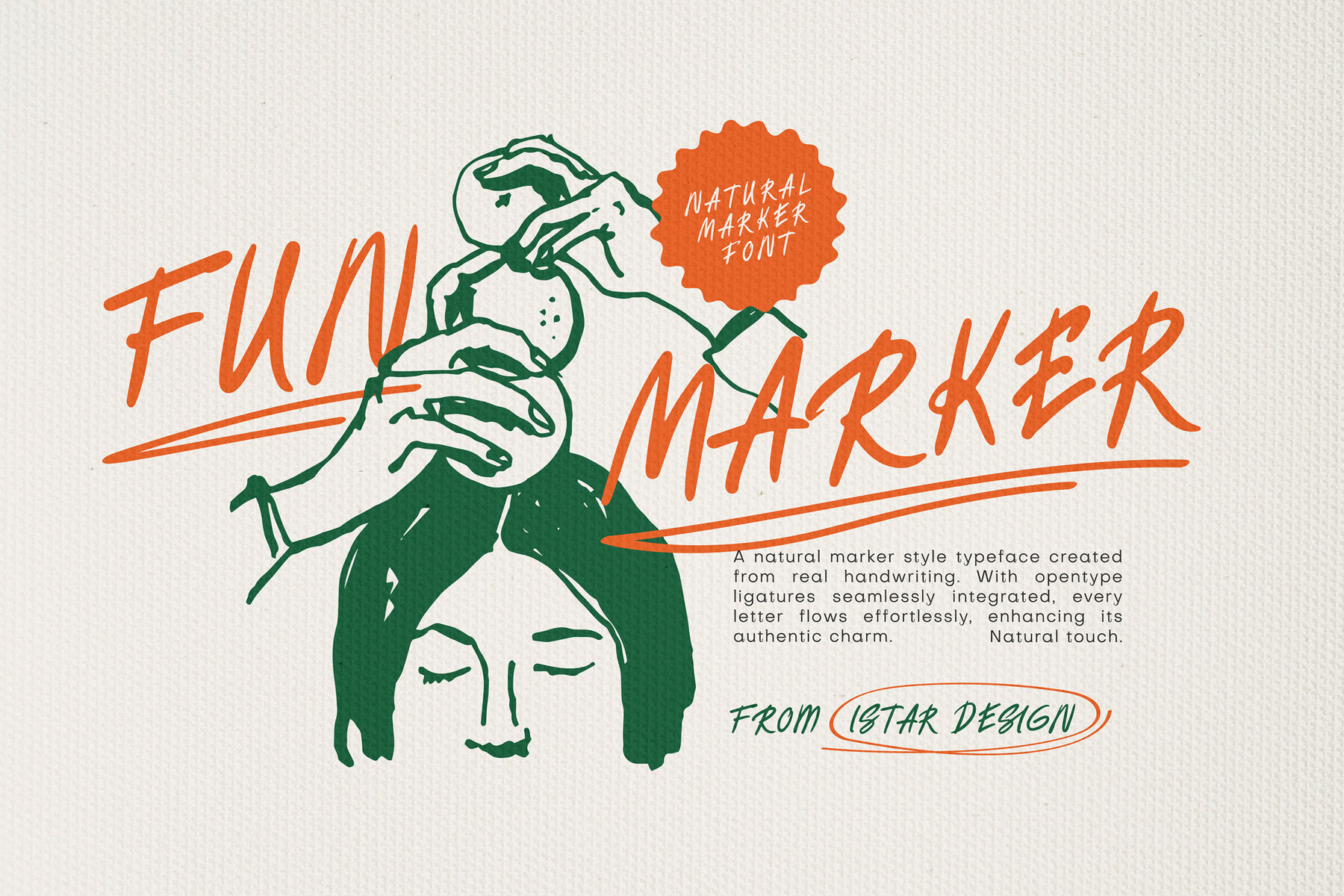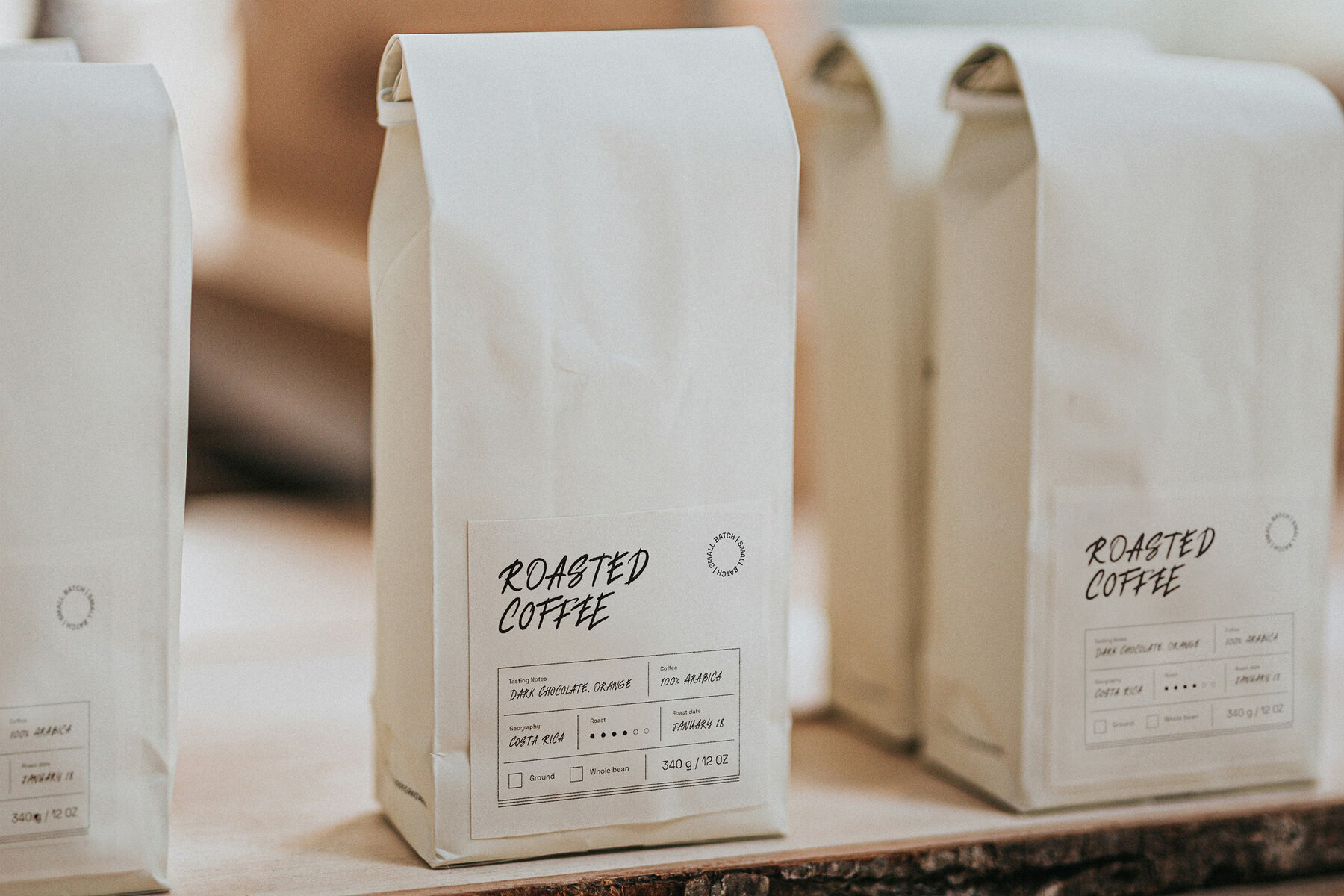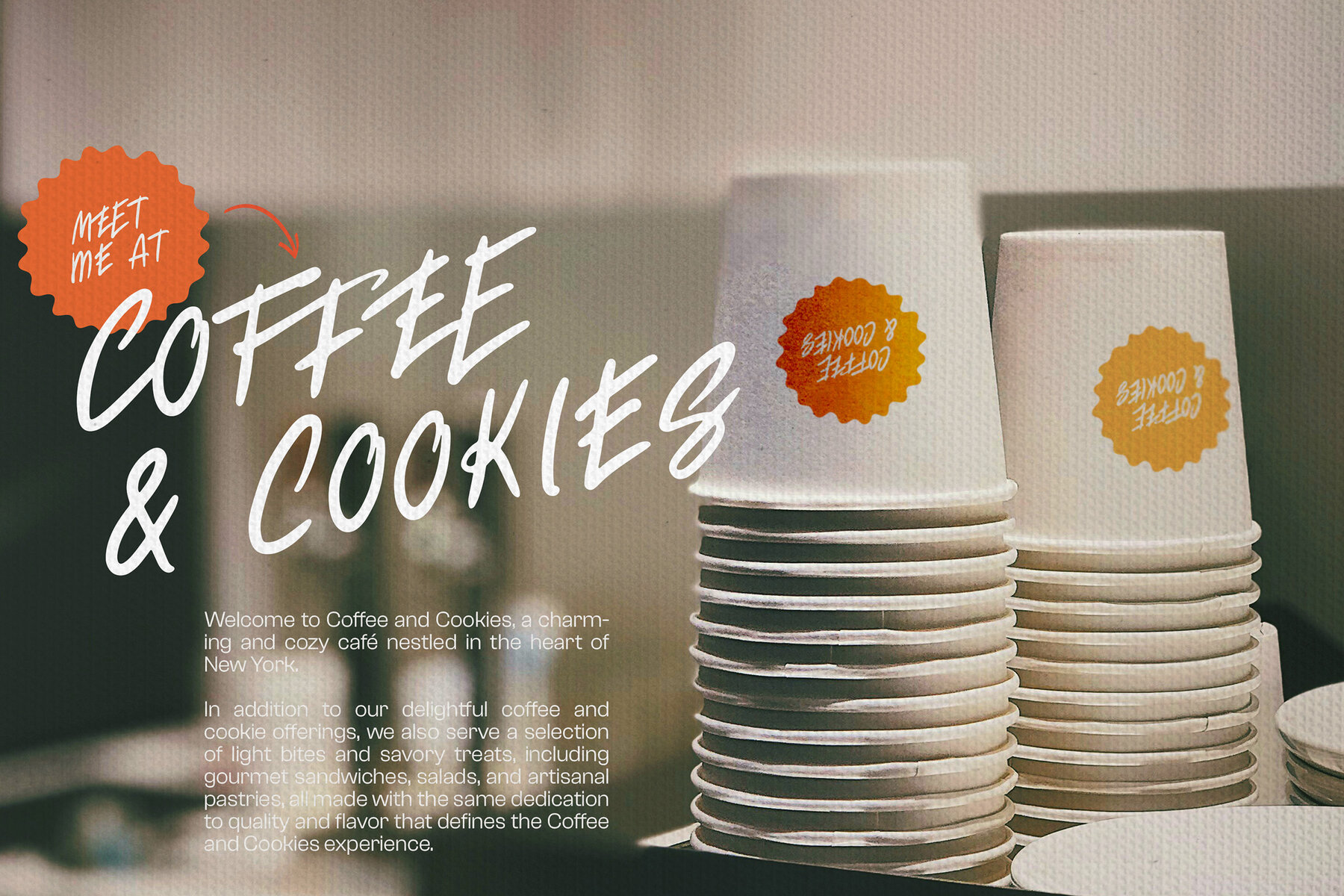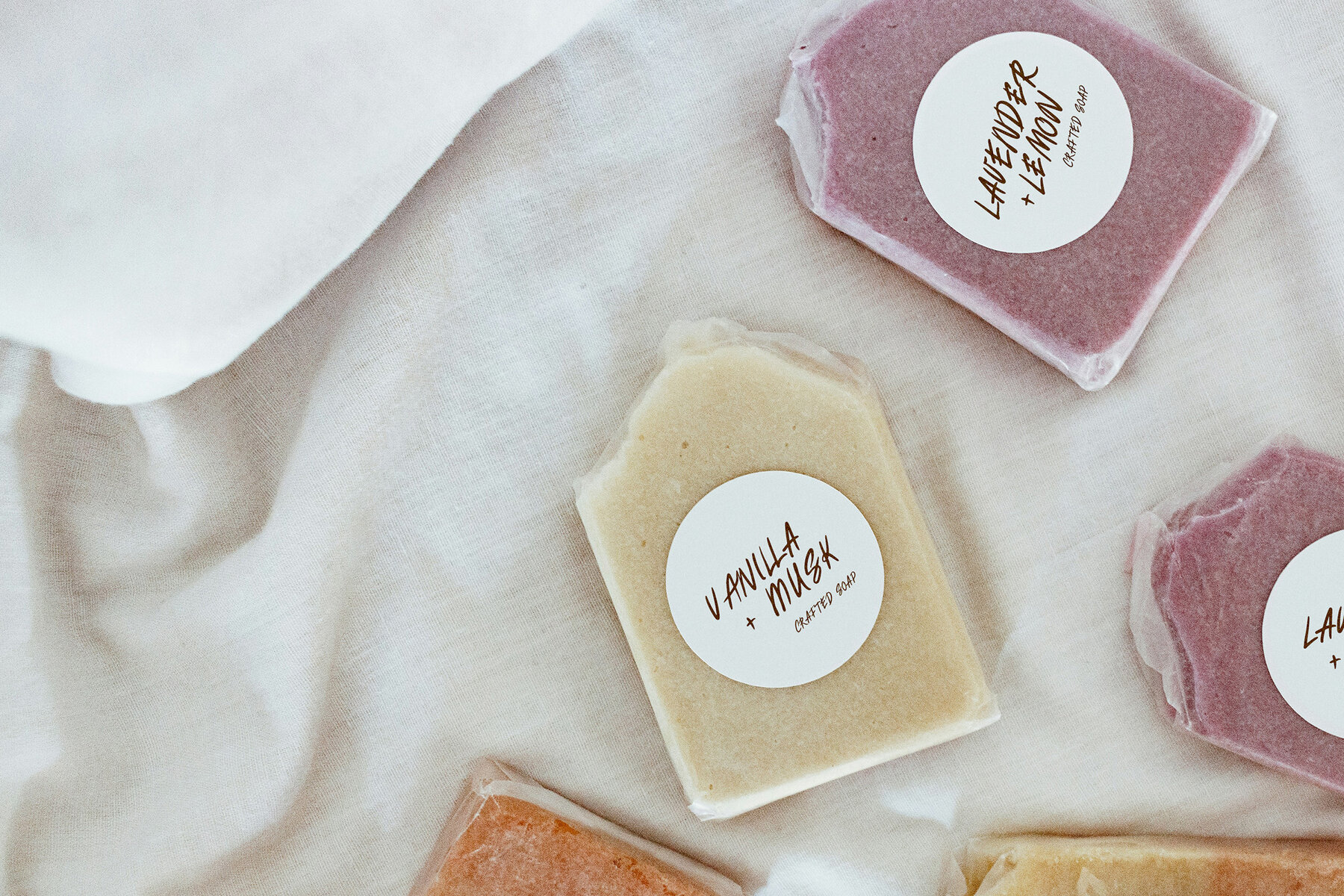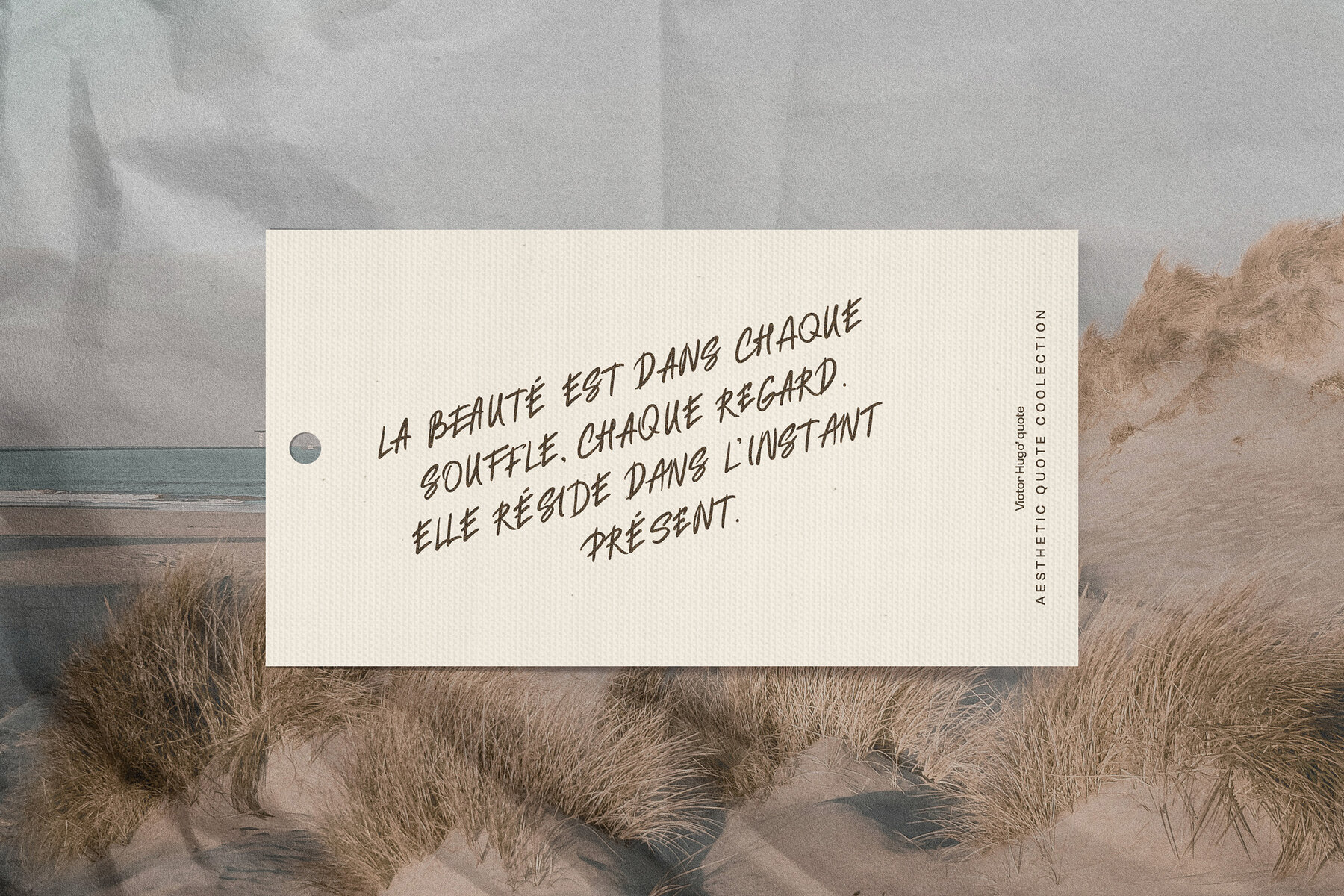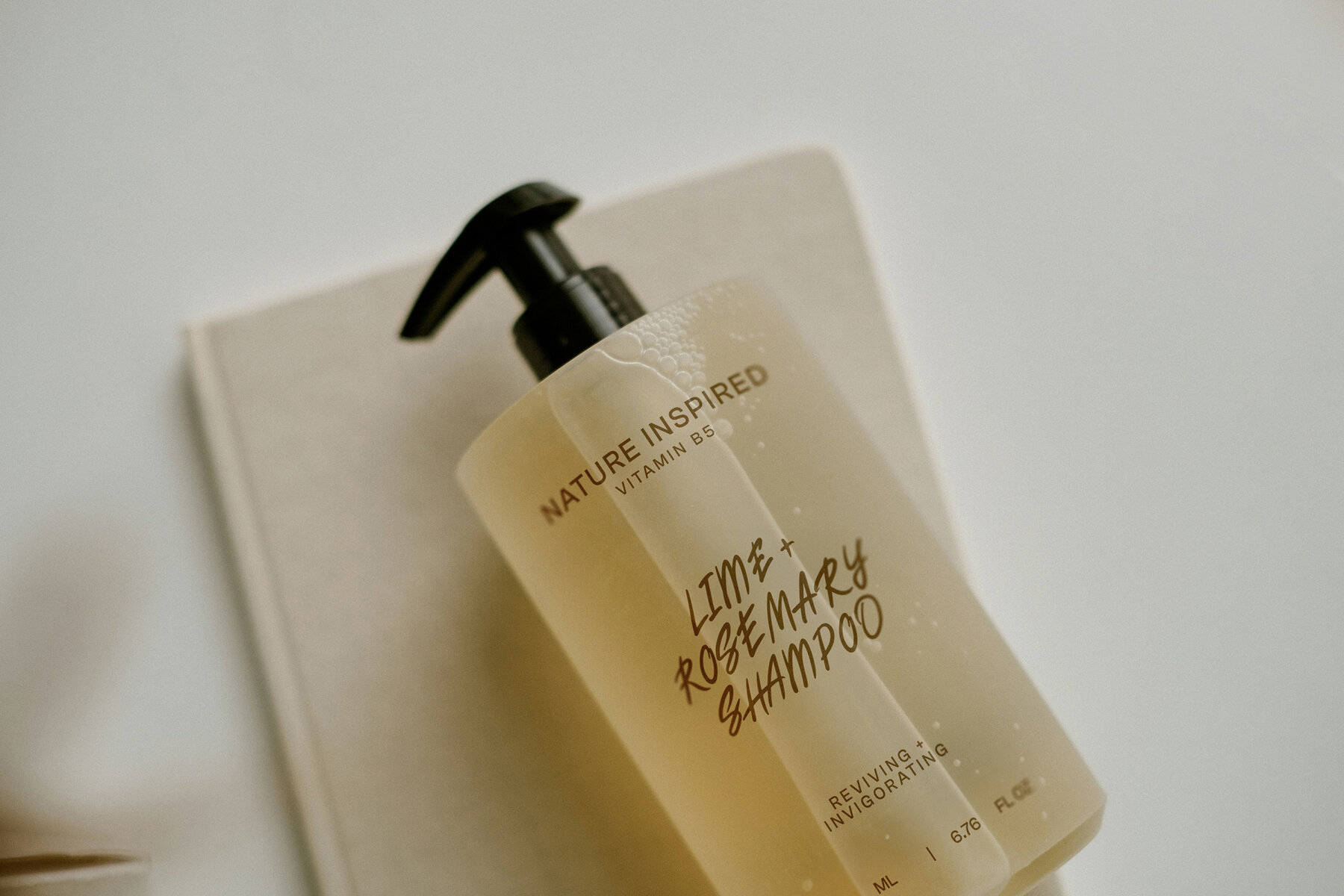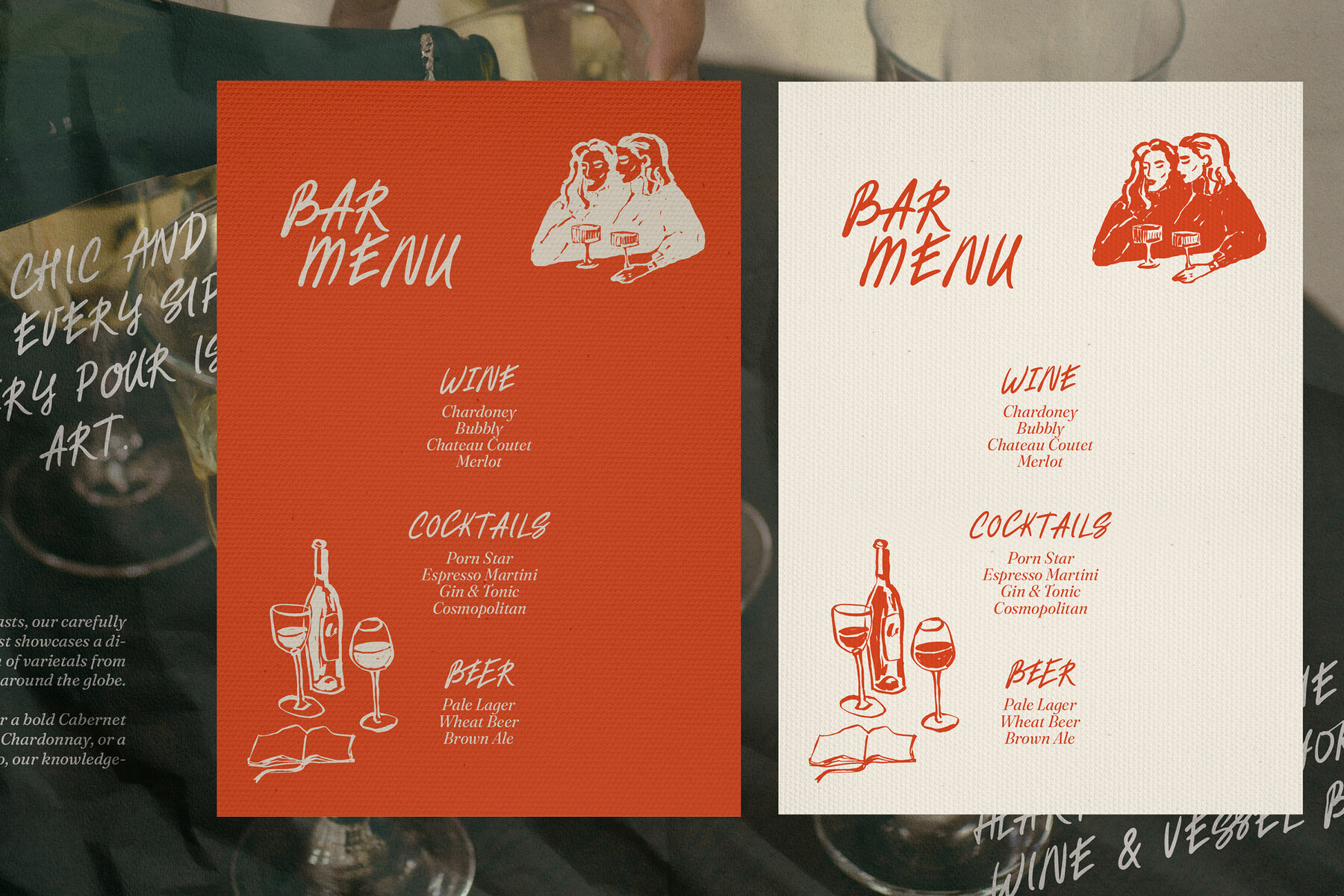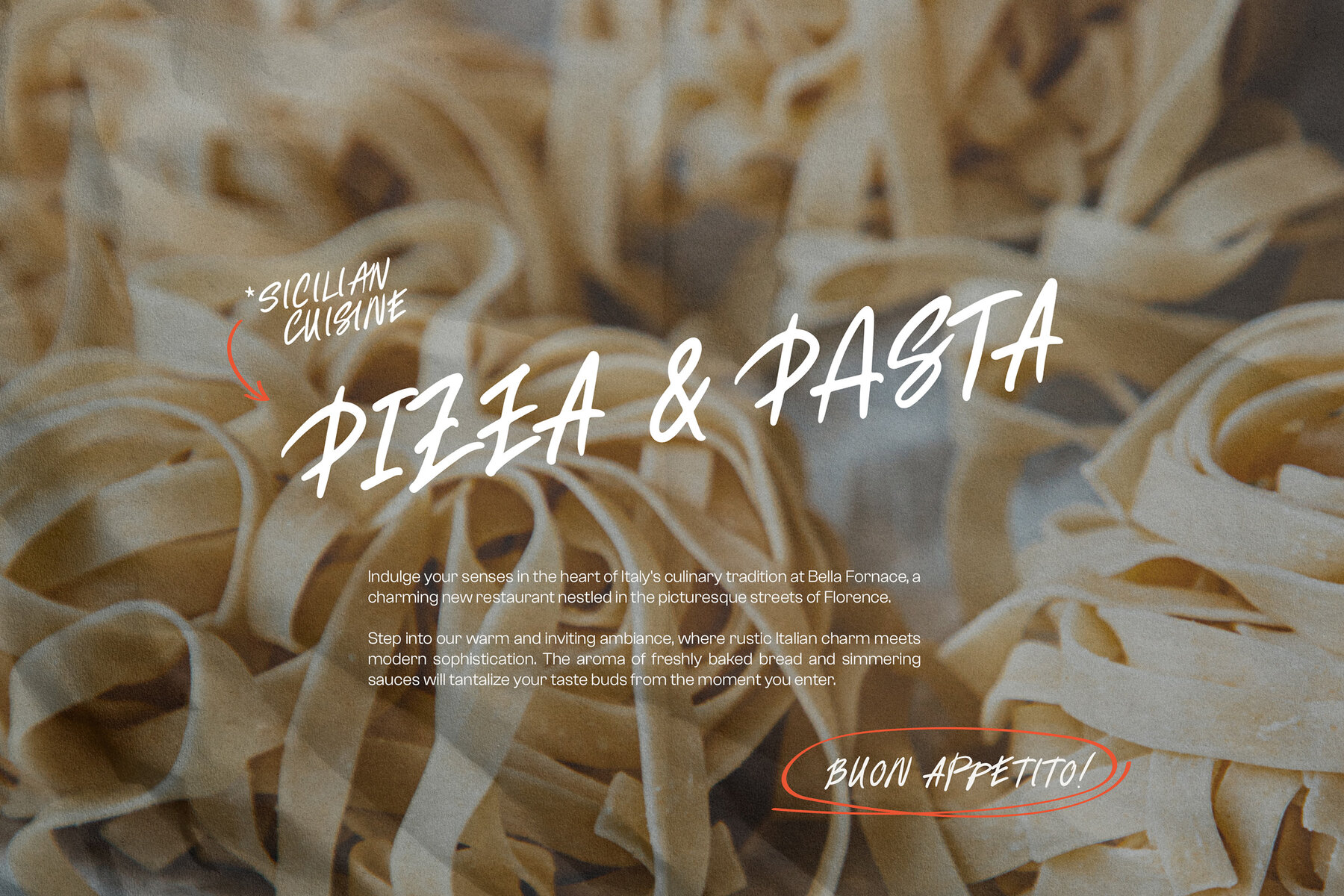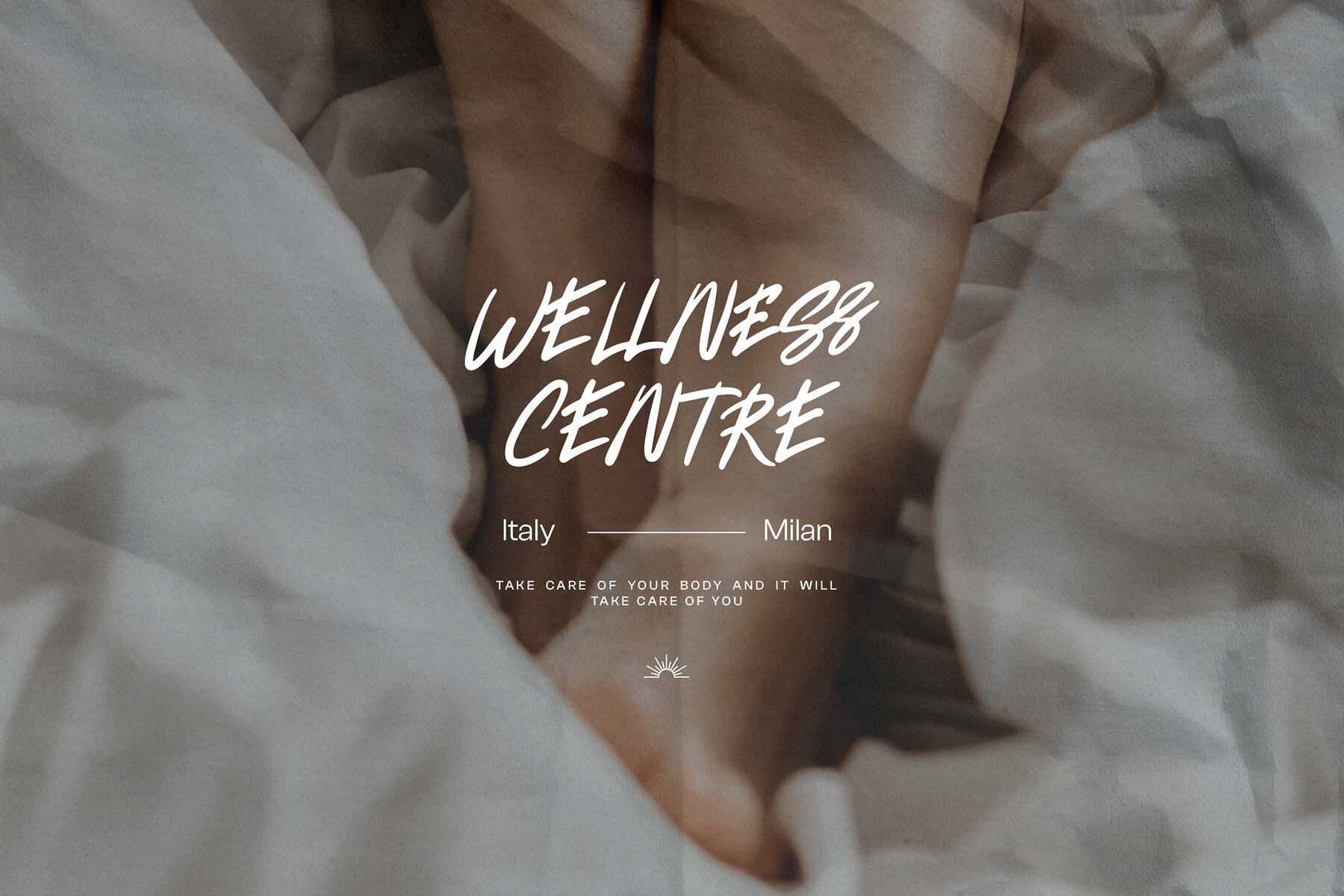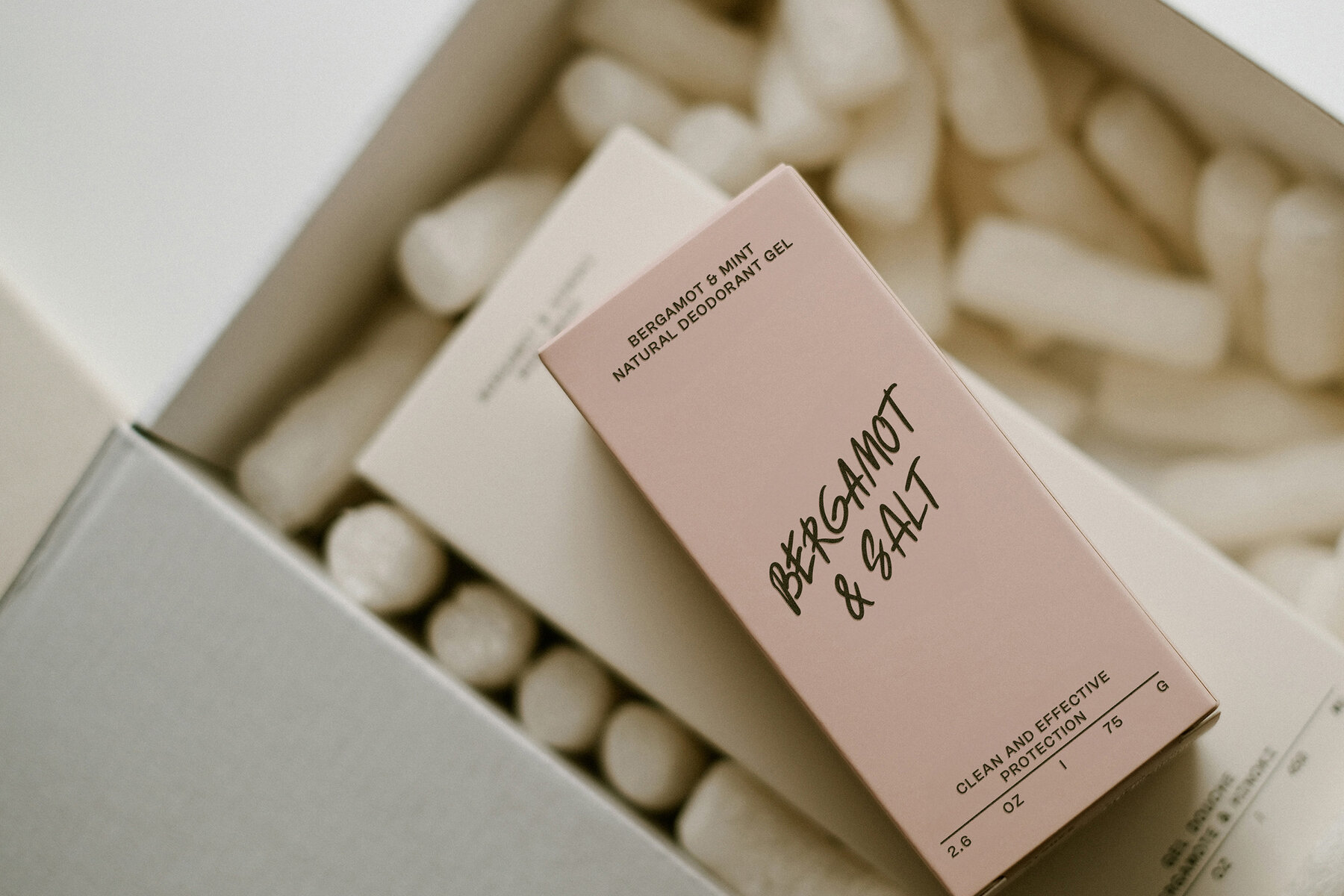
Fun marker Font
Fun Marker Regular
This font presents a lively, handwritten script style that conveys a sense of spontaneity and personal touch. Ideal for designs that require an organic, dynamic feel, it's perfect for projects that benefit from a handwritten, creative flair. This typeface might not be suitable for more formal or corporate applications but works exceptionally well for expressive, artistic, and casual projects.